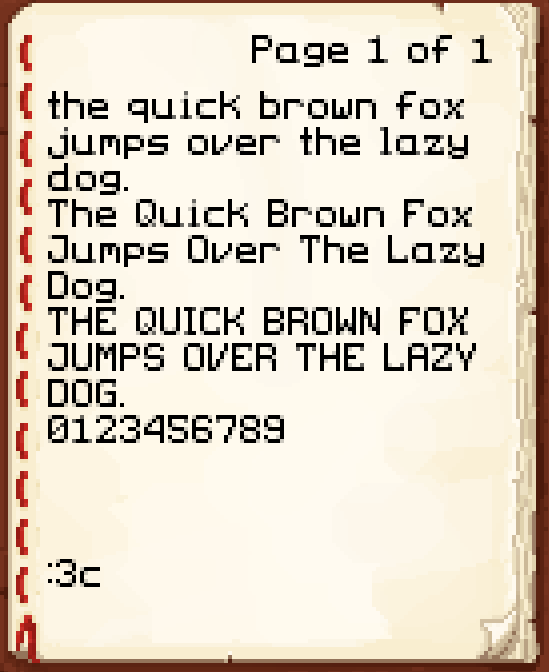
Originally made for my modpack, Pistachio Font simply changes Minecraft's font to something a little less bland while staying close to the vanilla feel! Currently only changes the ASCII font file, but I may update the pack further in the future! :3